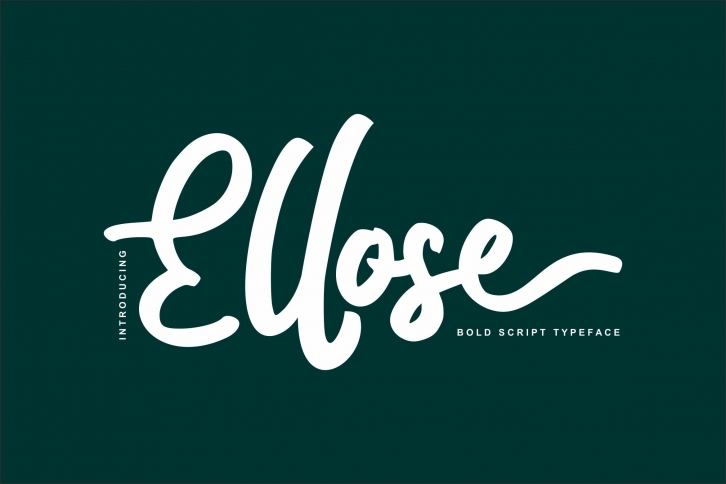
Ellose Bold script is a trendy and unique font with an authentic style. It was designed by Fannanstudio and it's a great choice for creative people who need such a font. It was released on September 8, 2021 and the file size is 5.67 MB. Ellose Bold script will add an organic vibe to any design idea!